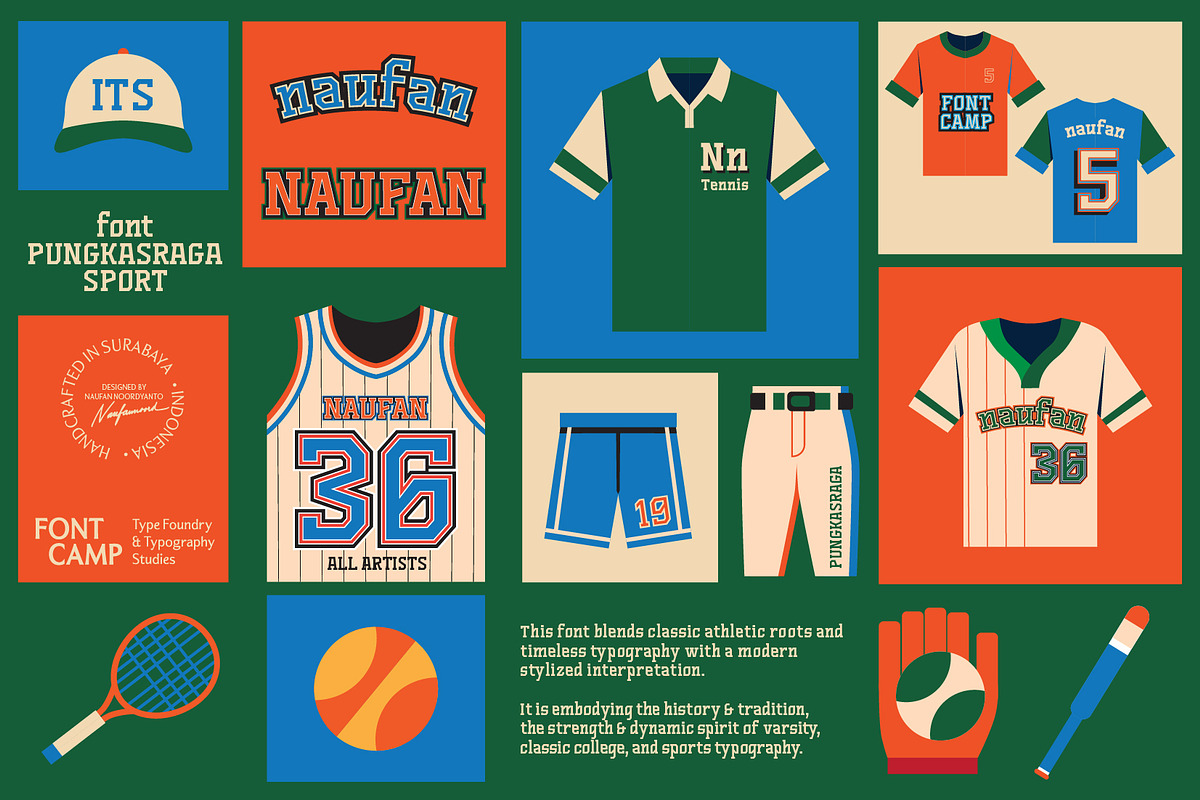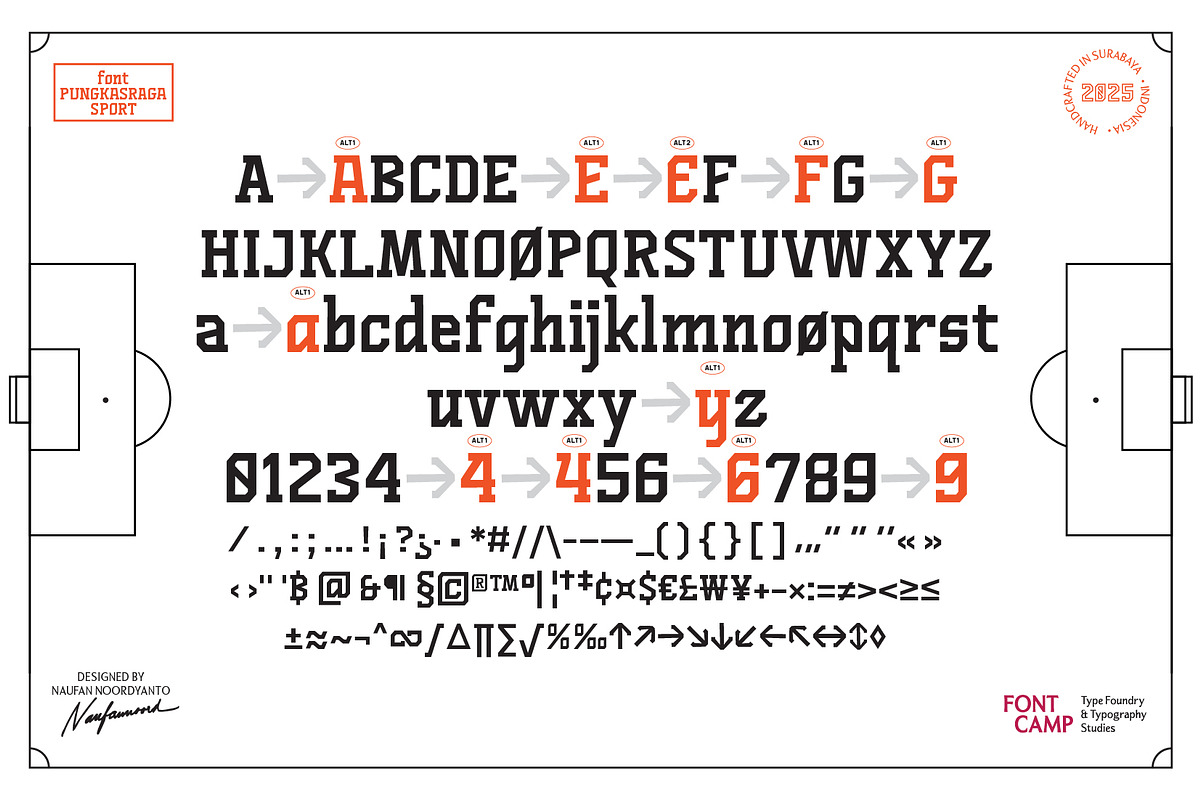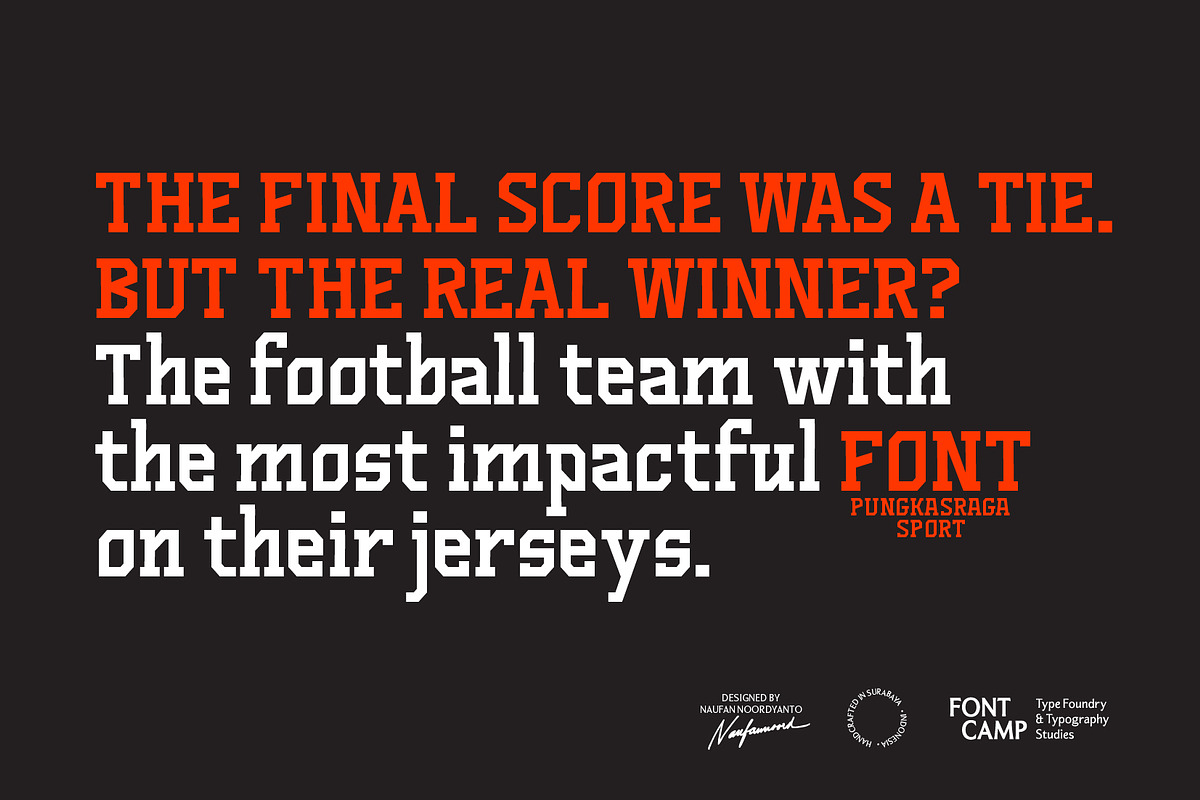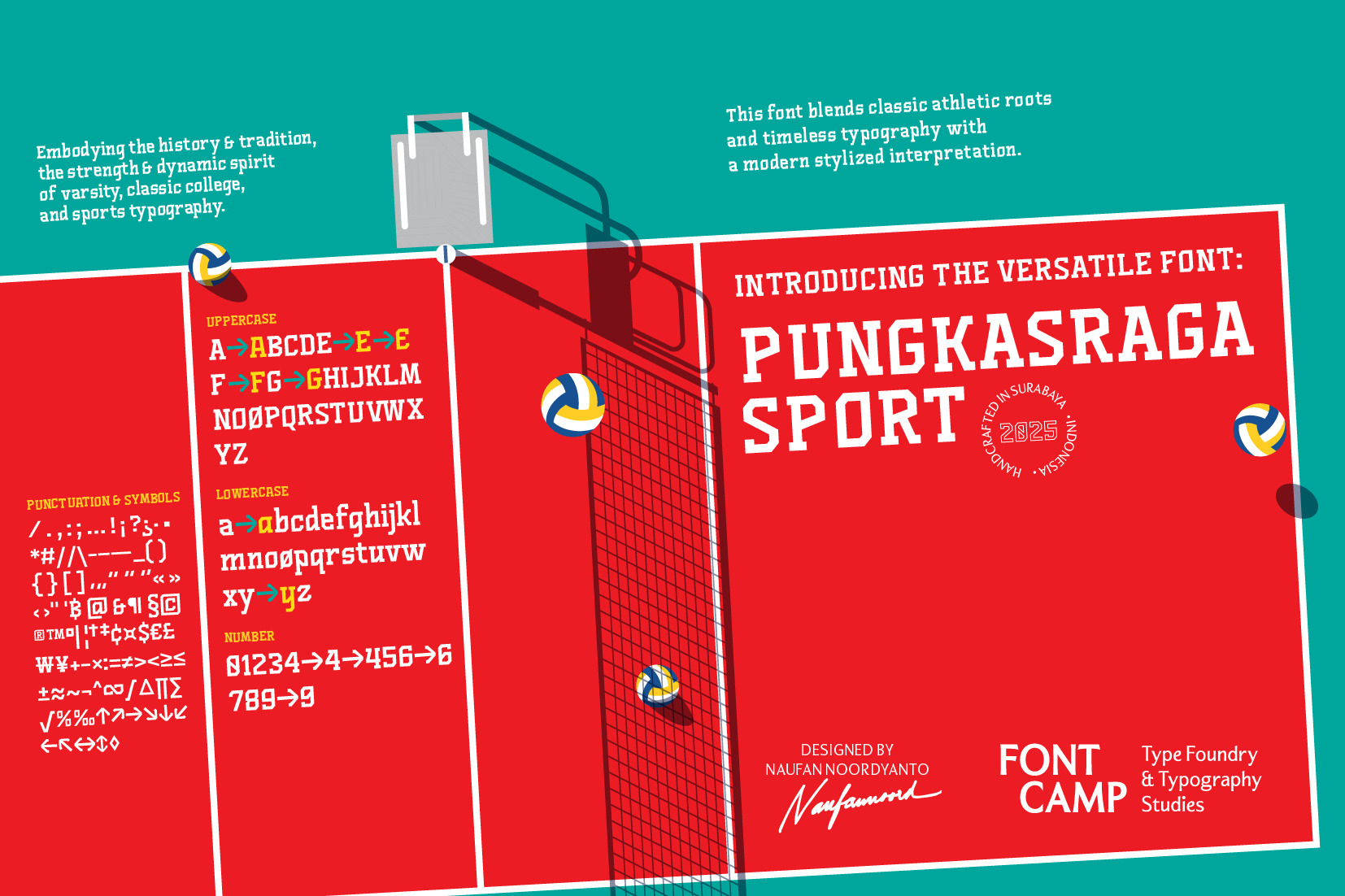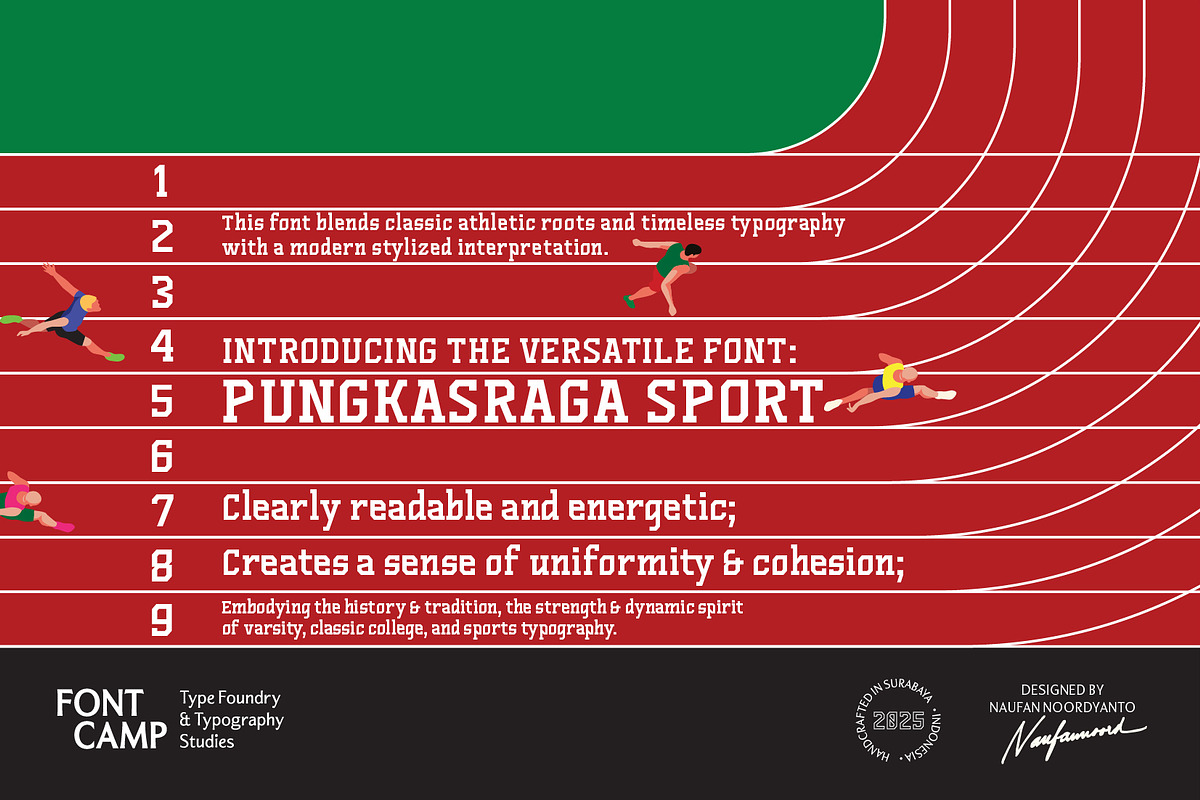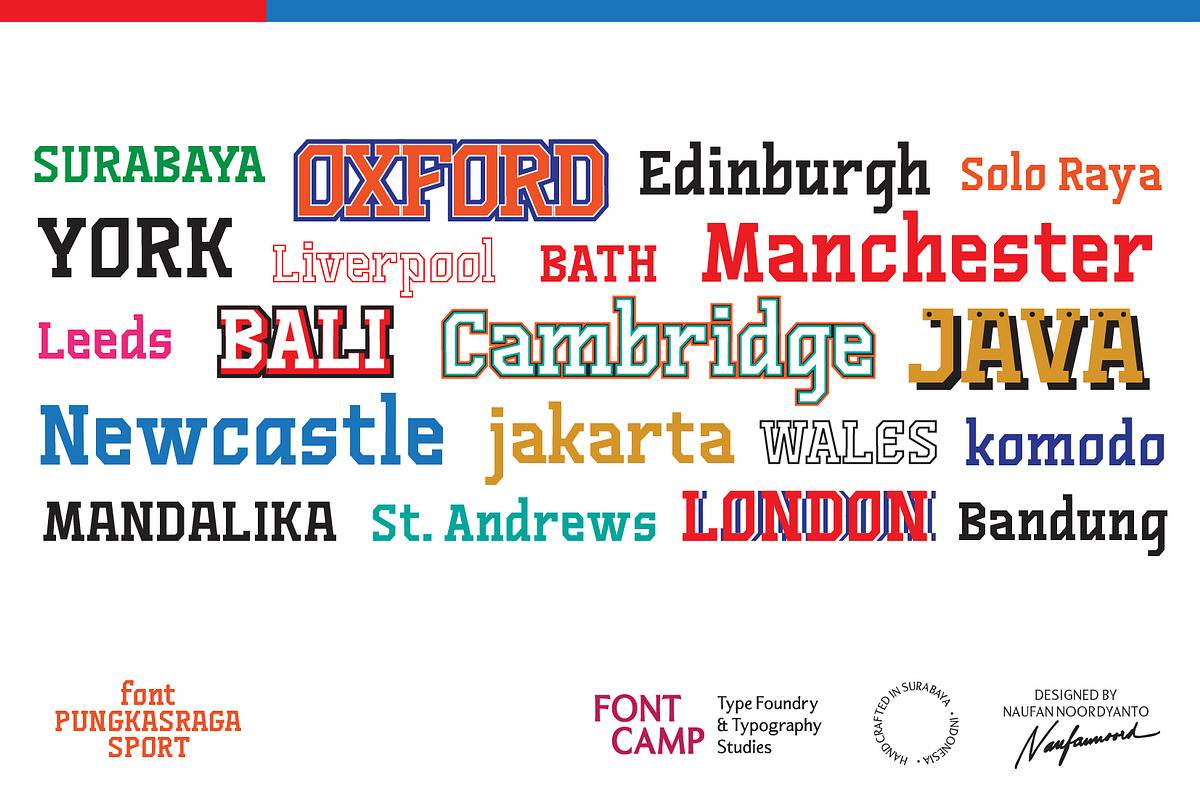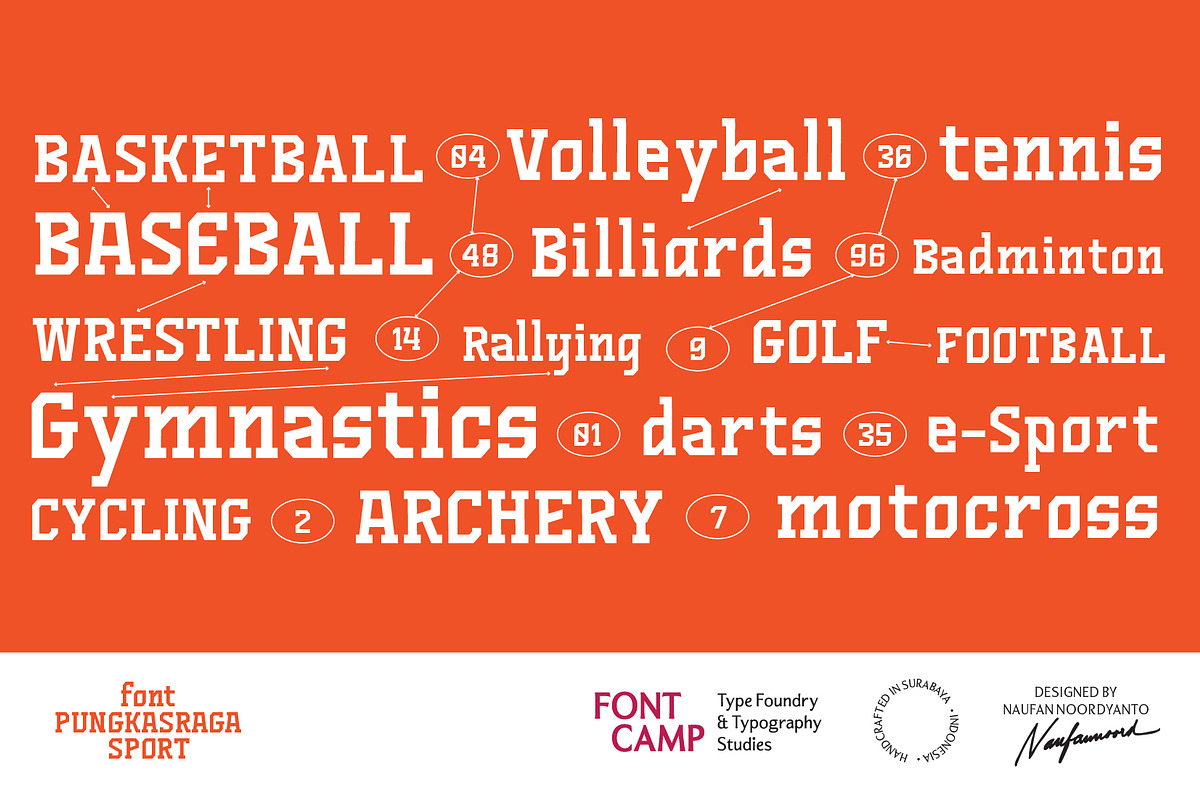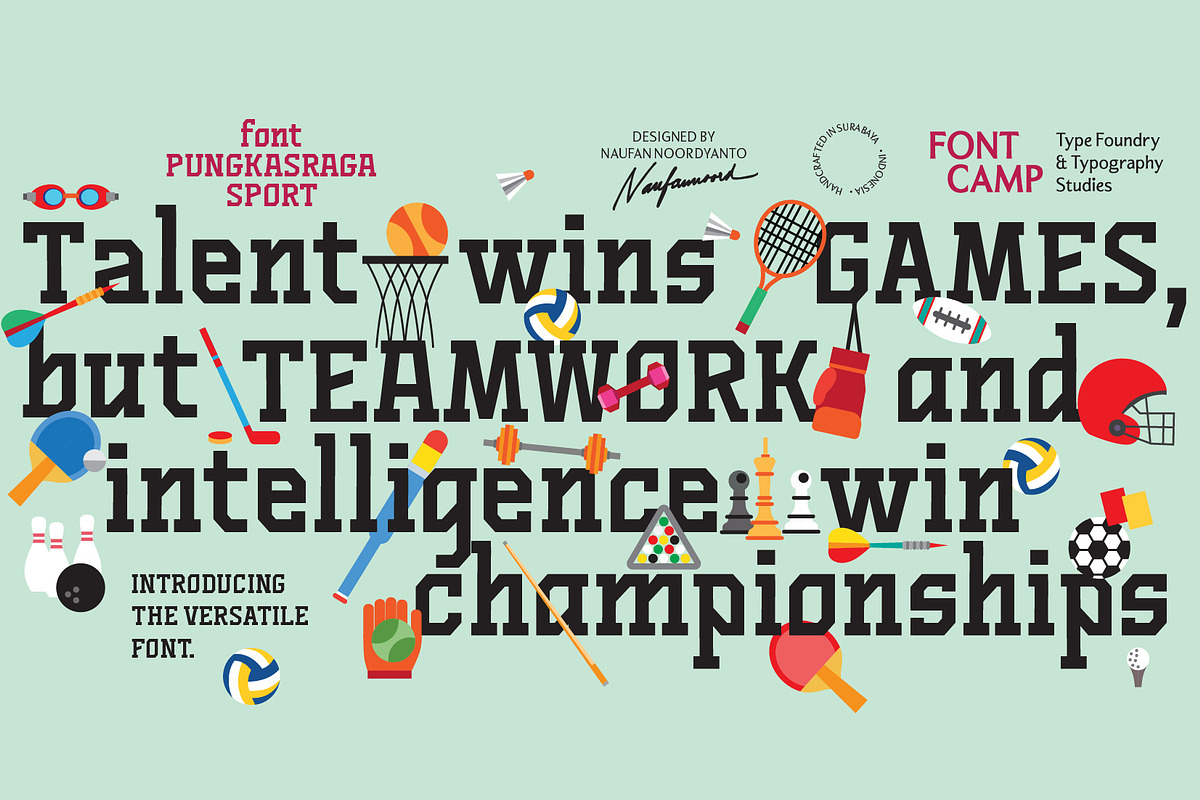
Pungkasraga Sport Font
Introducing a "Pungkasraga Sport" font.
DESCRIPTION:
"Pungkasraga Sport" takes the core principles of classic sports typography – geometric shapes, boldness, and strong visual presence – and modernizes them with a unique touch to create a distinctive and impactful typeface suitable for contemporary athletic branding and design.
Features: 184 Glyphs, supporting 34 languages.